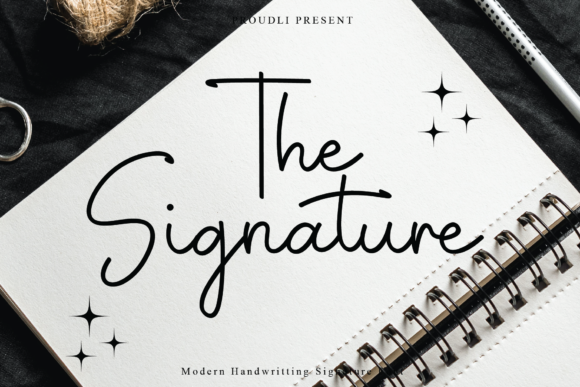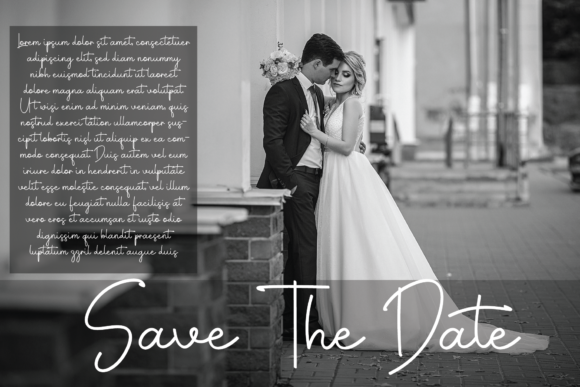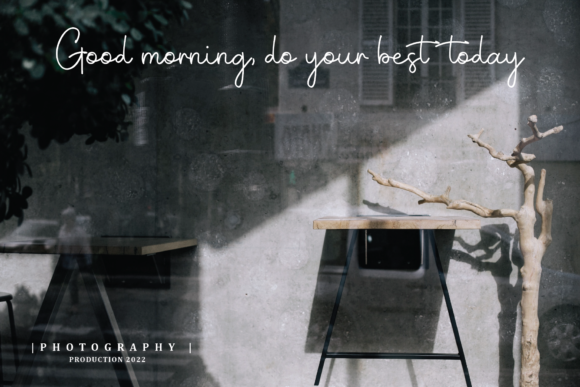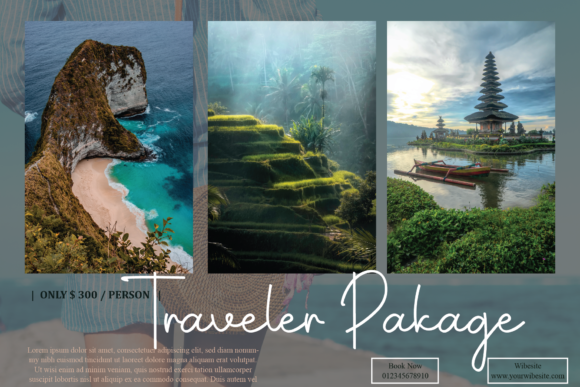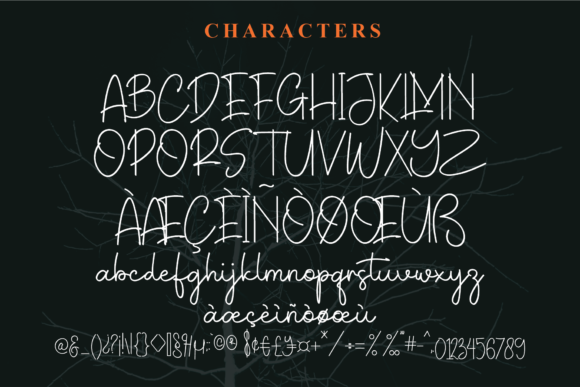
The Signature Font
About The Signature Font
The Signature is a thin lettered and delicate script font. It has beautiful and well balanced characters and as a result, it matches a wide pool of designs. Add it to your most creative ideas and notice how it makes them come alive!